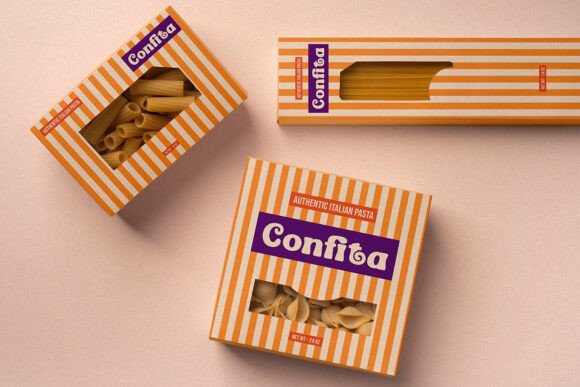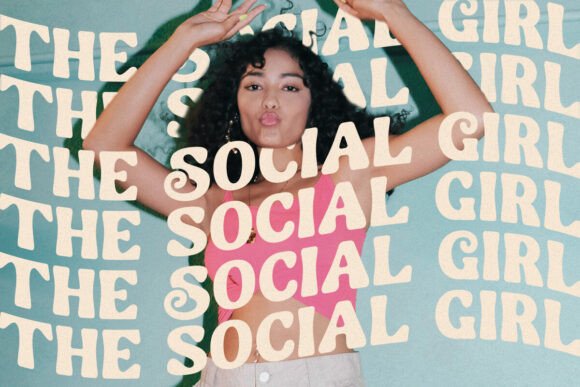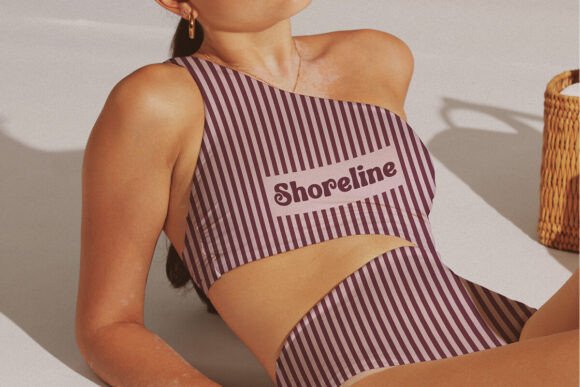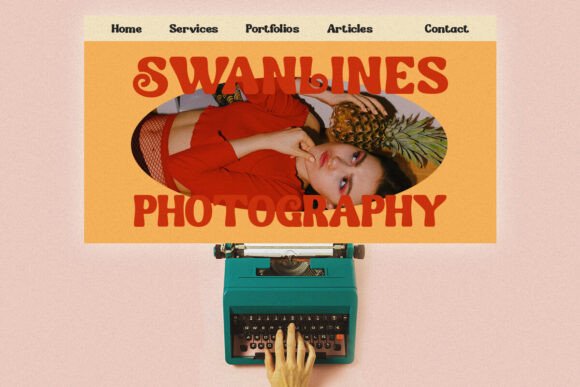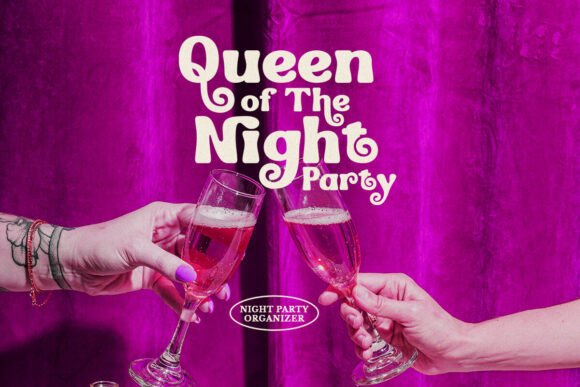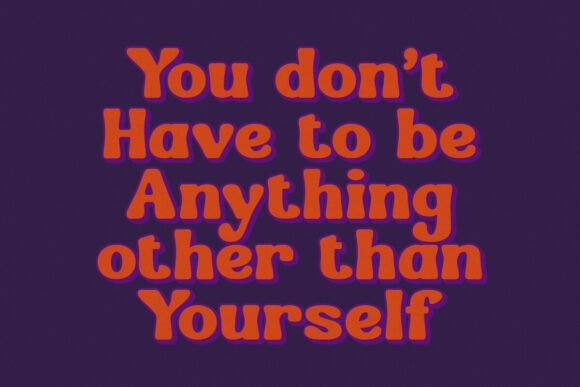
Introduction to Mulberry Font
Have you ever stumbled upon a vintage font that instantly transports you to a bygone era? For designers, this magical moment is a treasure trove of inspiration. It happened to me when I discovered the Mulberry Font – a groovy and psychedelic masterpiece that screams the 80s. Its unique shape is a design enthusiast’s dream come true, offering endless possibilities for creative projects.
The Mulberry Font is a design resource that’s waiting to be unleashed in your next project. Whether you’re working on a retro-themed graphic or a pop art masterpiece, this high-quality font is sure to elevate your design to the next level. Plus, with its transparent background, you can seamlessly integrate it into any design. And the best part? You can download it for free, making it an invaluable addition to your design arsenal.
As a designer, you understand the value of having the right design resources at your fingertips. The Mulberry Font is one such gem that’s sure to become a staple in your design toolkit. So, what are you waiting for? Dive into the world of the Mulberry Font and unlock a world of creative possibilities.
Key Features of Mulberry Font
- High-quality design resource ideal for creative projects, available for free download with transparent background.
- Includes a range of font styles, each with its unique characteristics and nuances, perfect for adding depth and visual interest to designs.
- Designed with a high resolution, making it suitable for both print and digital applications, including signage, logos, and web design.
Honest Review: Mulberry Font
I recently came across the Mulberry Font, and I was excited to give it a try in my next creative project. I downloaded it for free and was impressed by the high quality of the font. It’s perfect for those looking for a design resource that exudes elegance and sophistication.
What works well about the Mulberry Font is its versatility. It can be used for both personal and commercial projects, and it’s compatible with a variety of design software. The font also comes with a transparent background, making it easy to integrate into any design. ✨
Here are some of the key features of the Mulberry Font:
- High-quality design suitable for creative projects
However, I did find a few limitations with the Mulberry Font. It’s not suitable for use in very small text sizes, and it may not be the best choice for projects that require a bold, playful font. ⚠️
Overall, I’m impressed with the Mulberry Font. It’s a high-quality design resource that’s perfect for those looking for a elegant and sophisticated font. I would definitely recommend it for any creative project that requires a touch of class.
Mulberry Font
The Mulberry Font is perfect for a variety of creative projects, including blog posts, social media graphics, and marketing materials. Its modern and sleek design makes it ideal for use in digital design, such as website headers, footers, and call-to-actions.